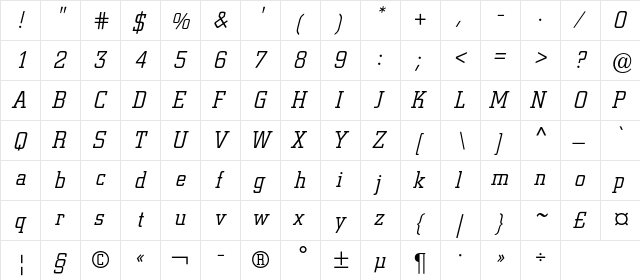
Coliseum-LightItalic Regular Font Preview
Coliseum-LightItalic Regular
Coliseum-LightItalic Regular Font Details
Design Context for Coliseum-LightItalic Typeface
Coliseum-LightItalic is a composed and adaptable typeface that performs quietly and consistently across a wide range of design contexts. The slanted form adds forward momentum and visual energy. The delicate stroke weight brings airiness and refinement to layouts.
Pro Tip: Try Coliseum-LightItalic for annotation and caption copy alongside an upright companion — the contrast in angle creates a dynamic but ordered typographic system.